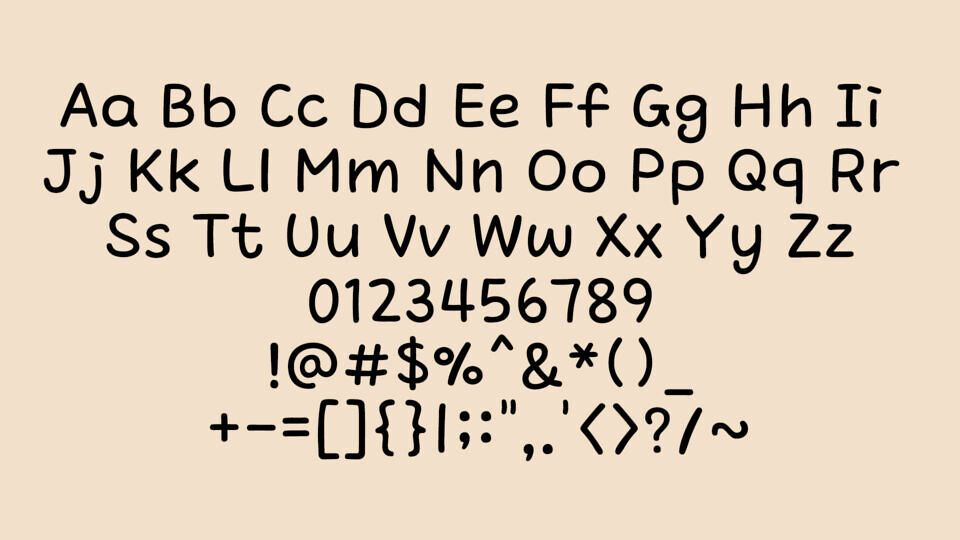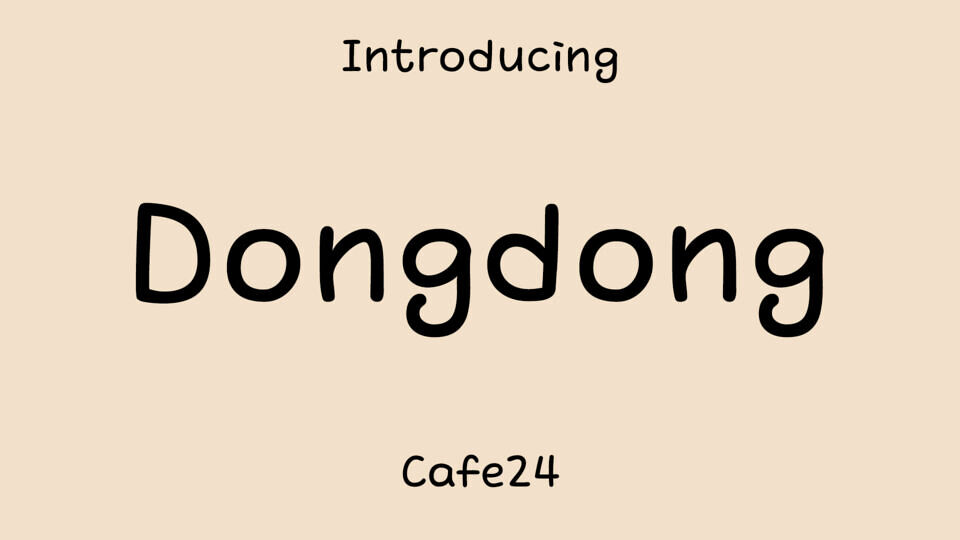
Dongdong Font by Cafe24 is a playful and friendly handwritten typeface that exudes warmth and simplicity. With its rounded edges and slightly irregular strokes, it captures a casual, childlike charm—perfect for projects aimed at younger audiences or brands seeking a cozy, approachable tone.
The clean, legible design includes full upper and lowercase sets, numbers, and punctuation, making it versatile for both print and digital use. Ideal for storybooks, product packaging, or social media graphics, Dongdong brings a soft, joyful personality to any design.